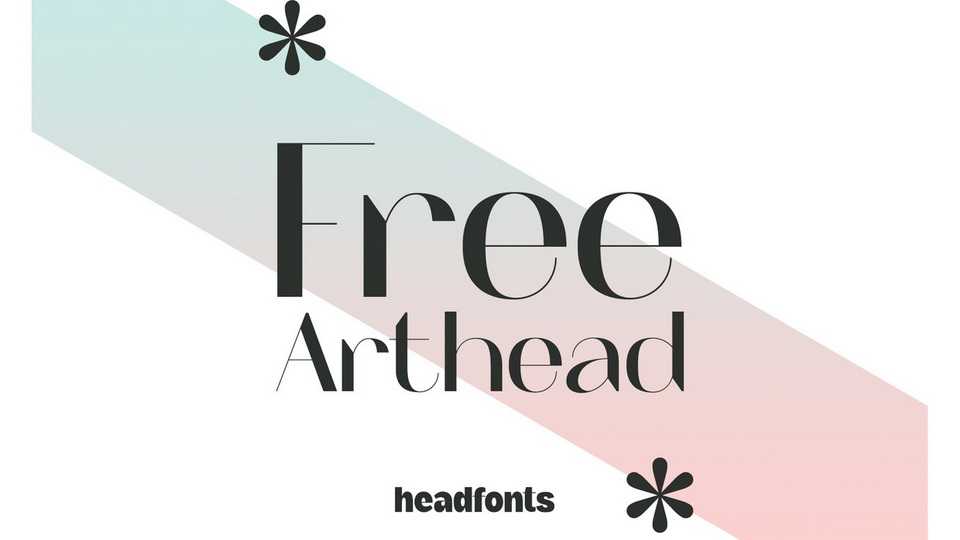
Download Arthead font, a sophisticated, ultra-modern sans serif and slightly decorative typeface that will add to your work a stylish and memorable touch. Arthead is not that complex in structures and shapes, being quite minimal, but has an extreme contrast in strokes, that gives the impression of negative space.